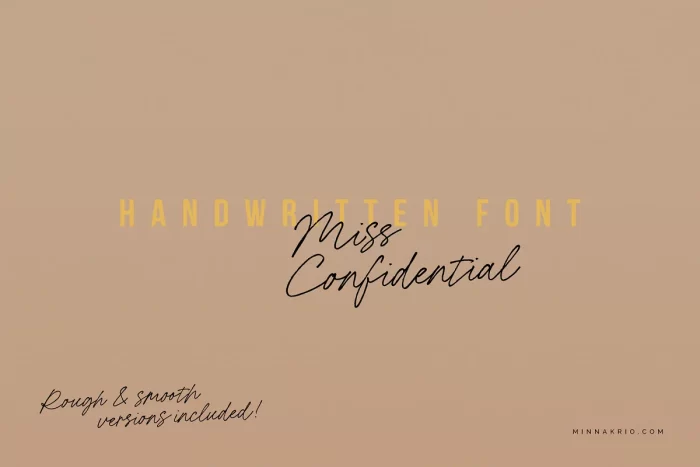
Miss Confidential Font
Miss Confidential is a casual yet elegant handwritten script font that adds a warm, organic, handmade touch to your designs. With slightly rough edges, it exudes a charming pen-on-paper look, making it perfect for logotypes, quotes, headlines, websites, packaging, wedding cards, and more.
For versatility, Miss Confidential also offers a Smooth version with perfectly clean outlines when the situation calls for a polished appearance. To achieve an authentic handwritten feel, the font includes a full set of lowercase alternates and over 40 ligatures, providing ample variety and customization options. If you use software that supports OpenType, these features are included in the main font. Otherwise, alternates and ligatures can be accessed through the Alt and Liga fonts.
Miss Confidential Script Font